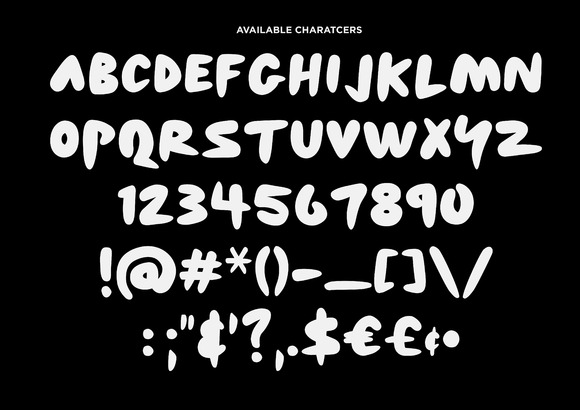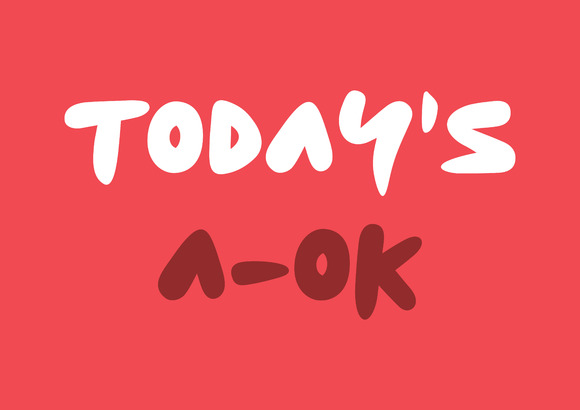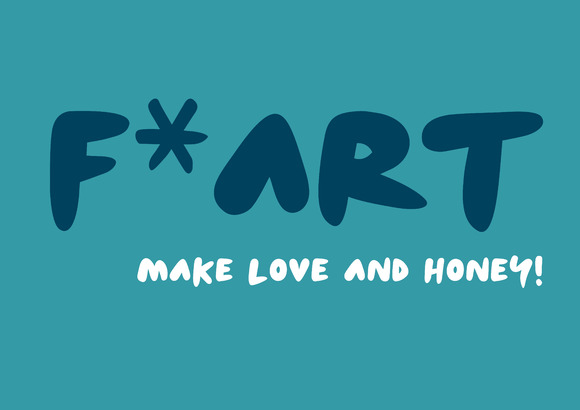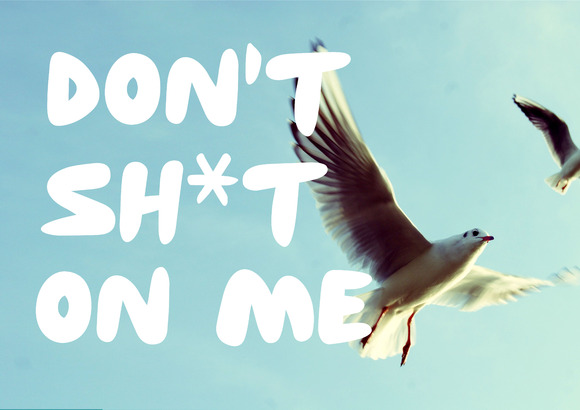
Yay Display Typeface
An informal typeface made to put the yay in your day. Available for personal and commercial use. It’s good for fun, good for your mum, great in the sun.